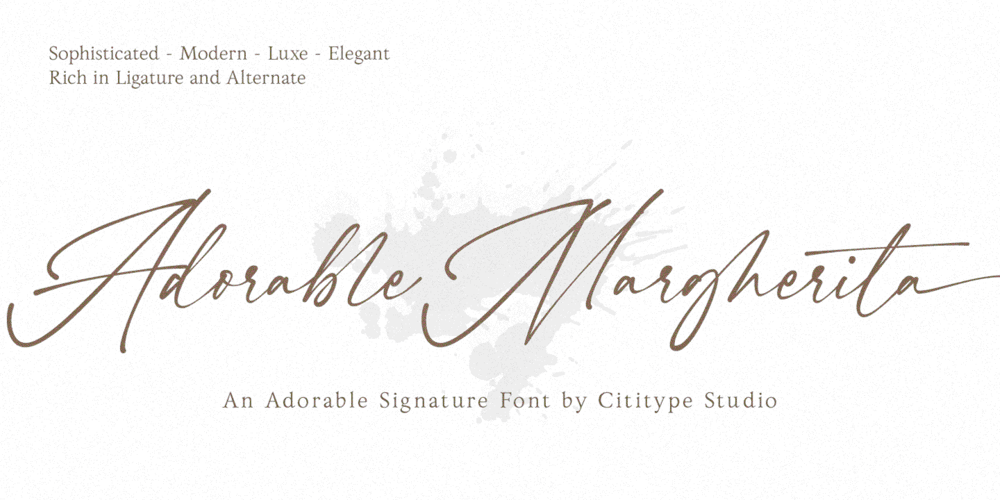
Adorable Margherita Font Family was designed by Muhammad Ridha Agusni, Siti Saribanon Nurjannah and published by Cititype. Adorable Margherita contains 1 styles and family package options. Adorable Margherita is an organic and chic handwritten font. It is a great choice for branding, signature, wedding invitation, promotion, product packaging, and other needs. This font is modern, luxe, simple and authentic. You will get full set of lowercase and uppercase letters, numerals and punctuation, multilingual symbols, lowercase beginning and ending swashes and a ton of charming ligatures.